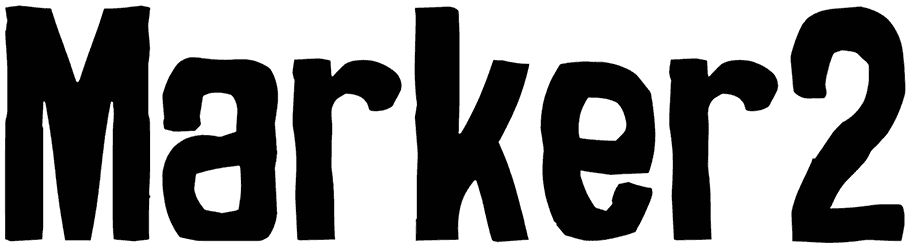
Marker2 Font
Marker2 is another script font with a unique marker effect character design. This font will give a cool, edgy, punk, and youthful vibe to the reader. You can use it to write channel banners, headlines, teenage book and movie names, party posters and flyers, and graffiti. The characters are all bold and longer, just like what is expected from adventure fonts.